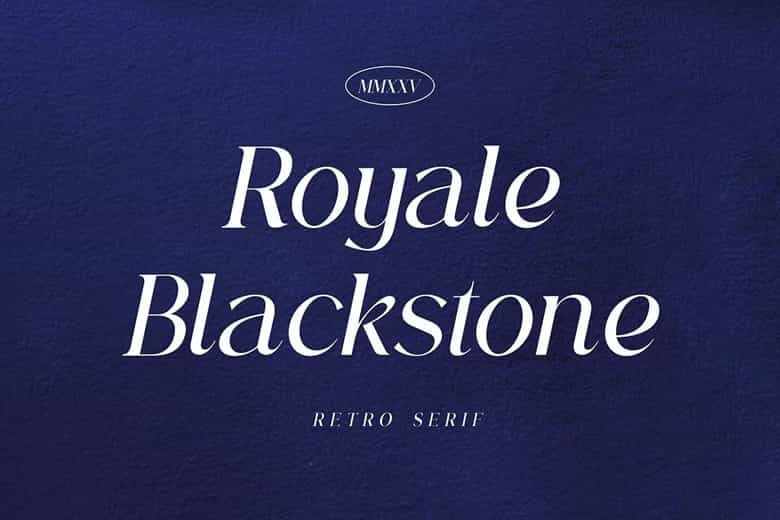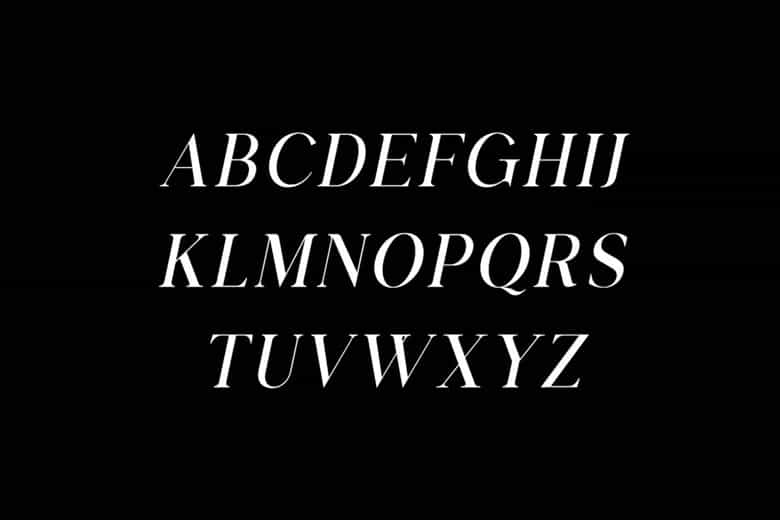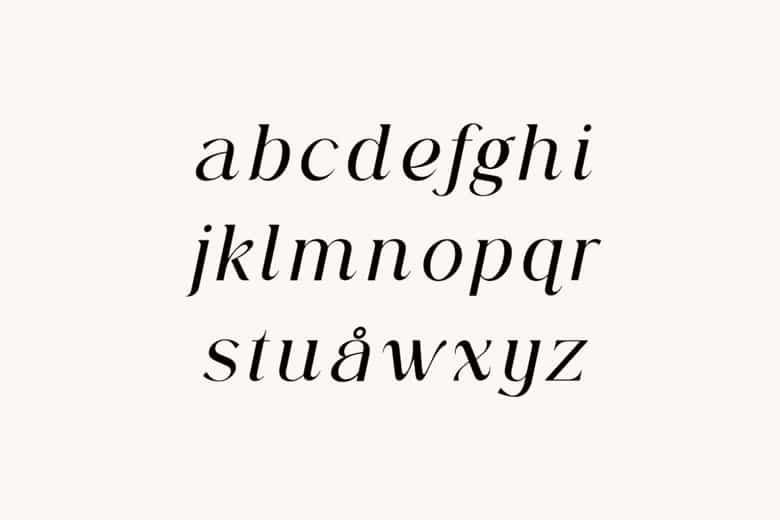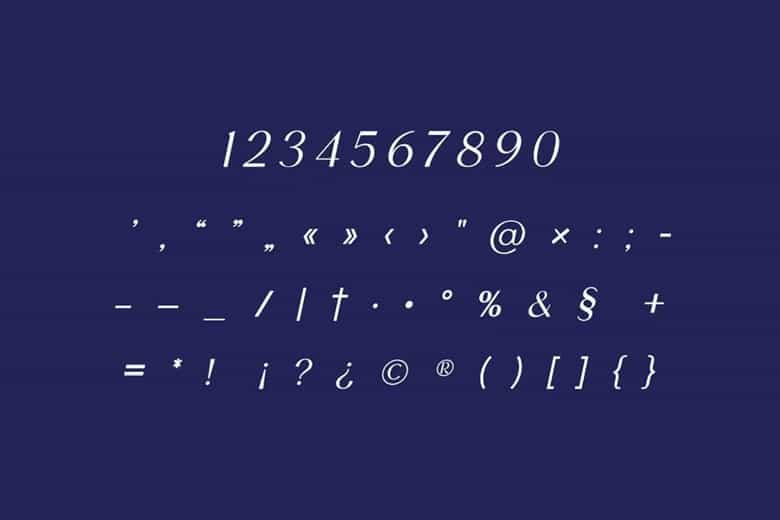
Royale Blackstone is a modern retro serif typeface with a refined, high-fashion aesthetic. This font is suitable in many projects including stationery, logo, wedding, typography quotes, magazine or book covers, website header, branding and any other project.